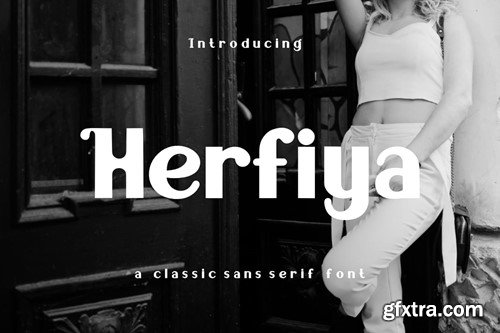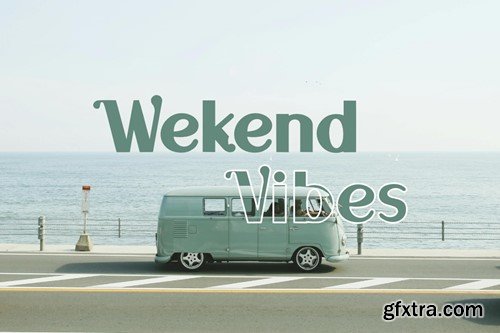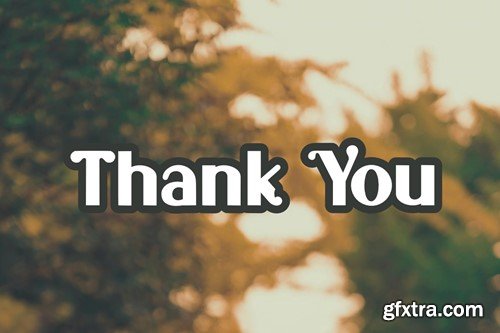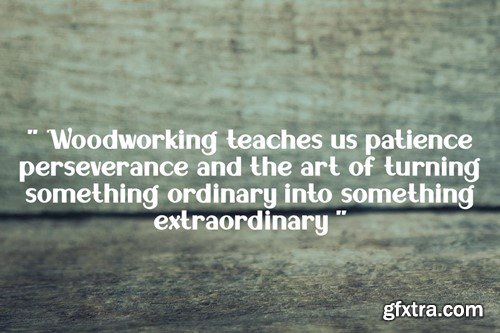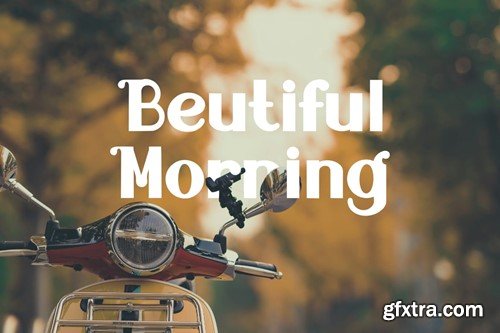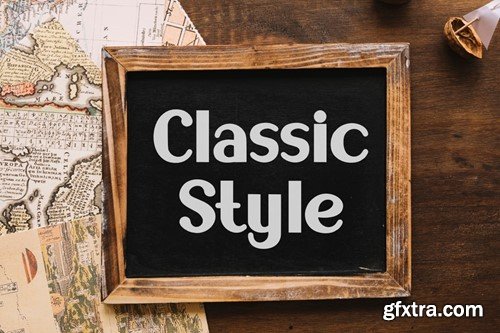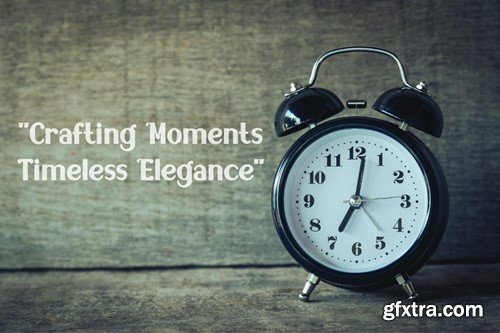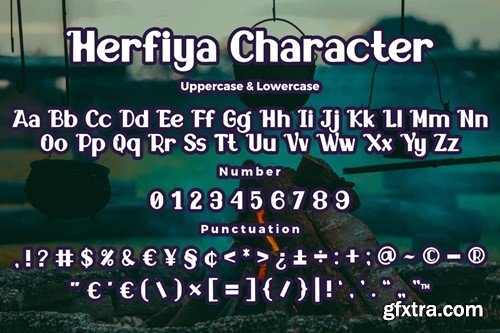
Herfiya - Classic Sans Serif Font
Hello, Thank you for visiting my products, we will give you the best choice. Herfiya a Classic Sans Serif Font, This font is made with a high premium quality level which you can use as flyers, quotes, posters, banners, packaging, merchandise, logotypes and much more. FEATURES : FILES INCLUDED : Thank you